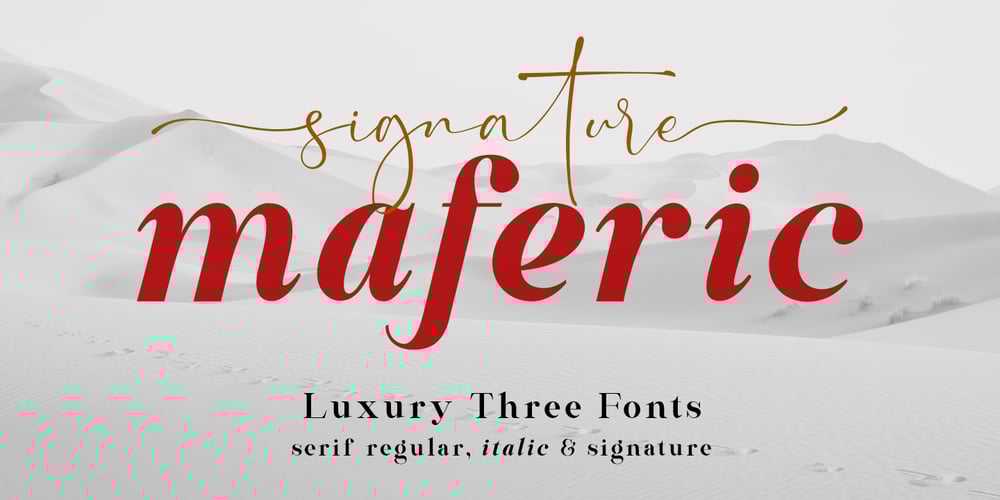
Maferic
Maferic font
Maferic Font Family was designed by Saiful Anwar and published by Sealoung. Maferic contains 3 styles and family package options. Maferic is a combination font consisting of luxury three fonts. Which has uniqueness in each letter and helps you to make your design work look more special. This font is perfect for your designs such as logos, branding, fashion, business cards, social media, and of course many more.Maferic font ready with:Any options to get creative variations (combination of Regular, Italic, and Signature) 3 files format already: .otf .ttf . woff Preview as an inspiration that you can do with Maferic Signature font Ready with Lowercase and Uppercase charactersLanguage Support; All three fonts support English, French, Italian, Spanish, Portuguese, German, Swedish, Norwegian, Danish, Dutch, Finnish, Indonesian, Malay, Hungarian, Polish, Turkish, Icelandic, Slovenian.That’s it! I hope you enjoy it, and please don’t hesitate to drop me a message if you have any issues or queries. Oh, and come and say hello over on Instagram! www.instagram.com/sealoungfonts